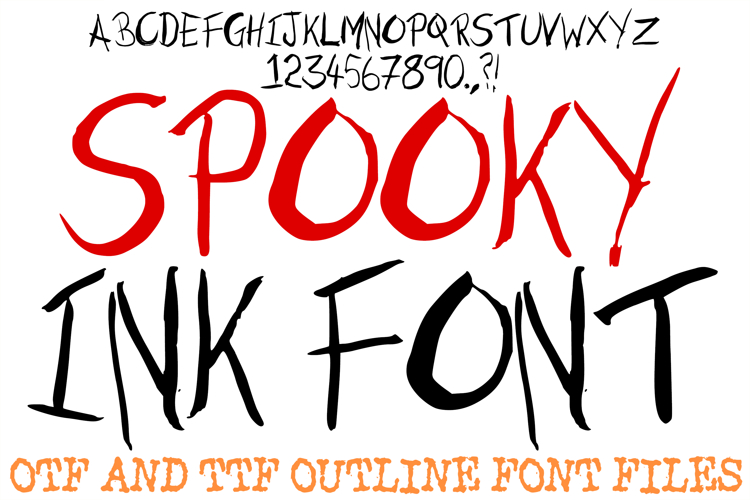
Spooky Ink Font Halloween Real Lettering Horror ABC OTF Type
The Spooky Ink Font is a premium, hand-drawn display typeface that captures the frantic, unhinged energy of wet ink on paper. Designed to evoke the feeling of a psychological thriller or a dark, "scrawled-in-the-dark" mystery, this font moves away from clean digital lines and embraces a visceral, aggressive aesthetic. Each character features sharp, needle-like points, natural ink bleeds, and a nervous, jittery baseline that creates an immediate sense of tension, dread, and high-stakes horror.
As a designer, you’ll find this is the ultimate tool for horror movie titles, true crime podcast branding, and edgy streetwear graphics. Whether you are working on grunge T-shirts, dark aesthetic social media headers, or creepy Halloween party invites, the Spooky Ink Font delivers an authentic, "disturbed" handwriting style that digital fonts simply cannot replicate. It turns every word into a raw, ink-stained relic of a haunted mind, making it a must-have for your seasonal and edgy design toolkit.